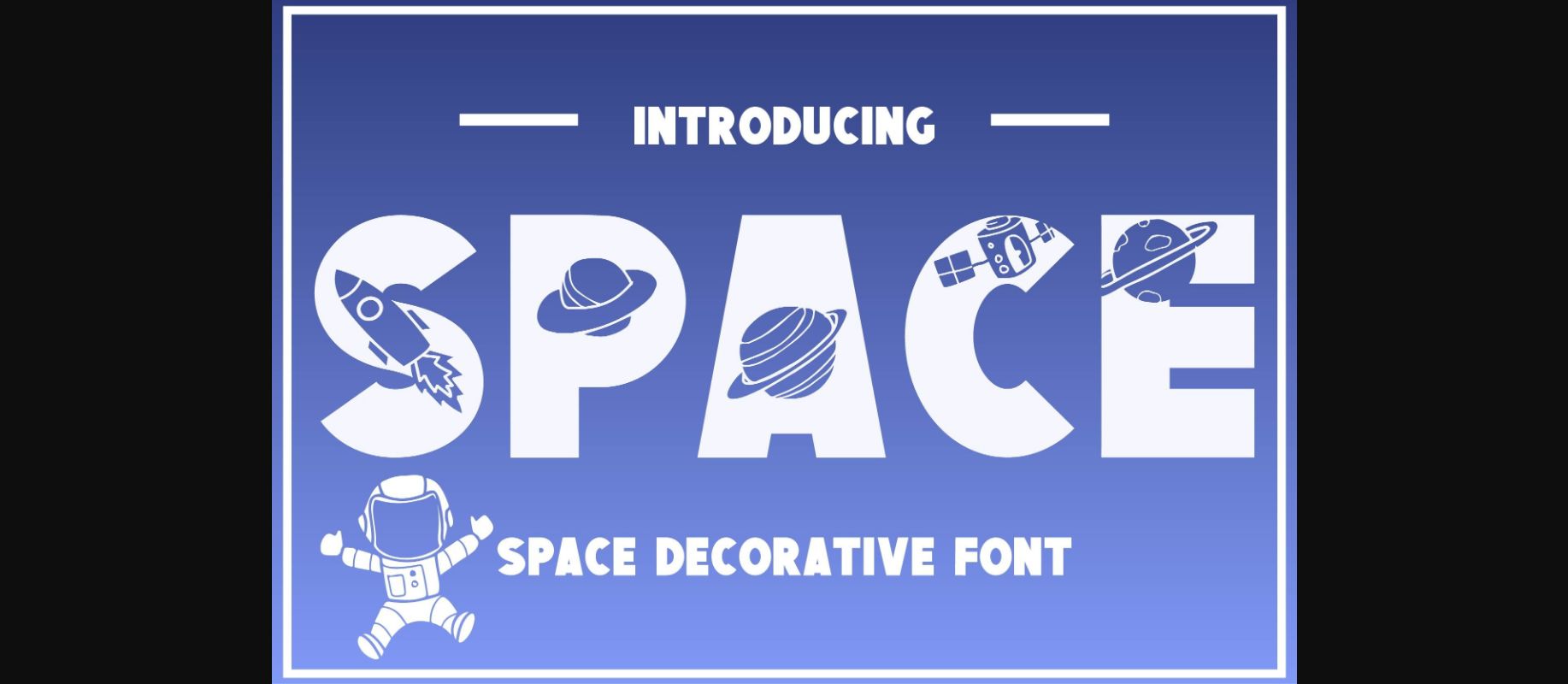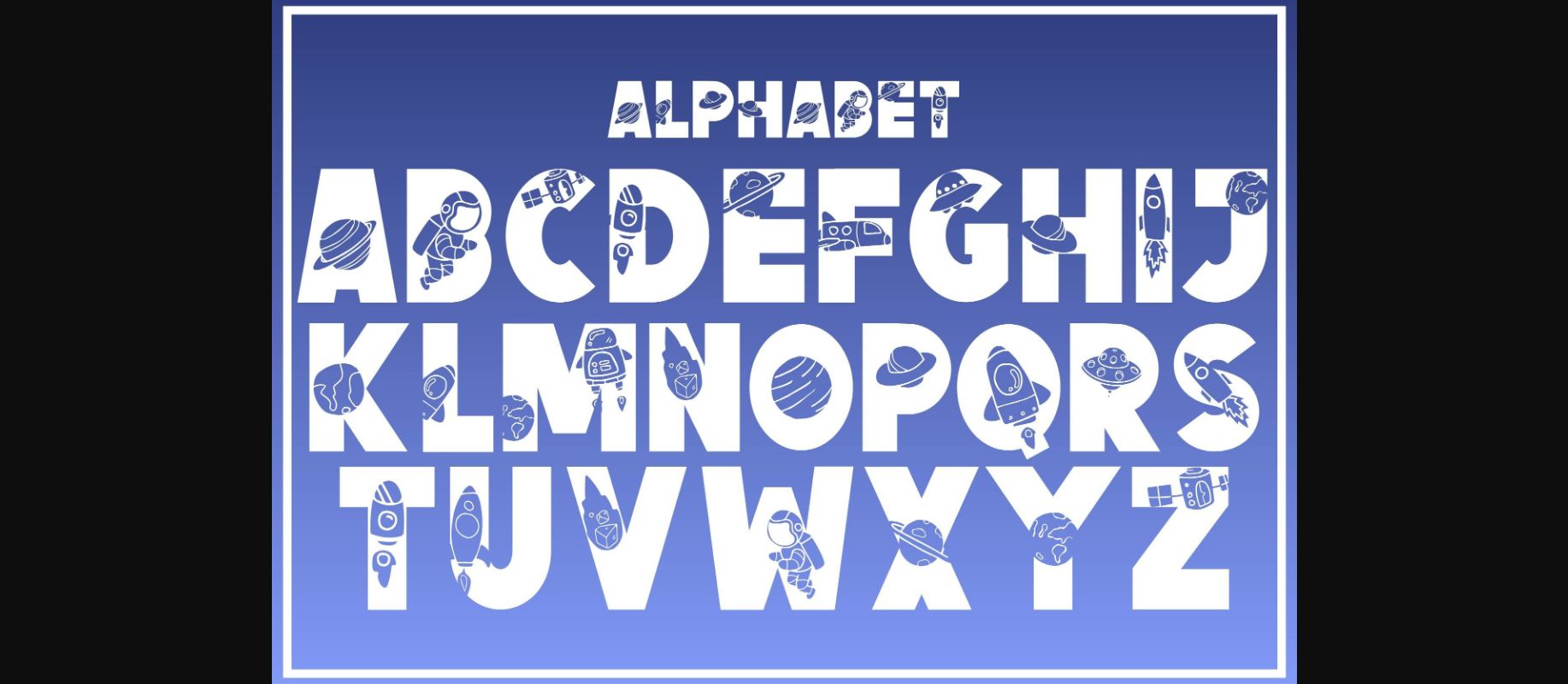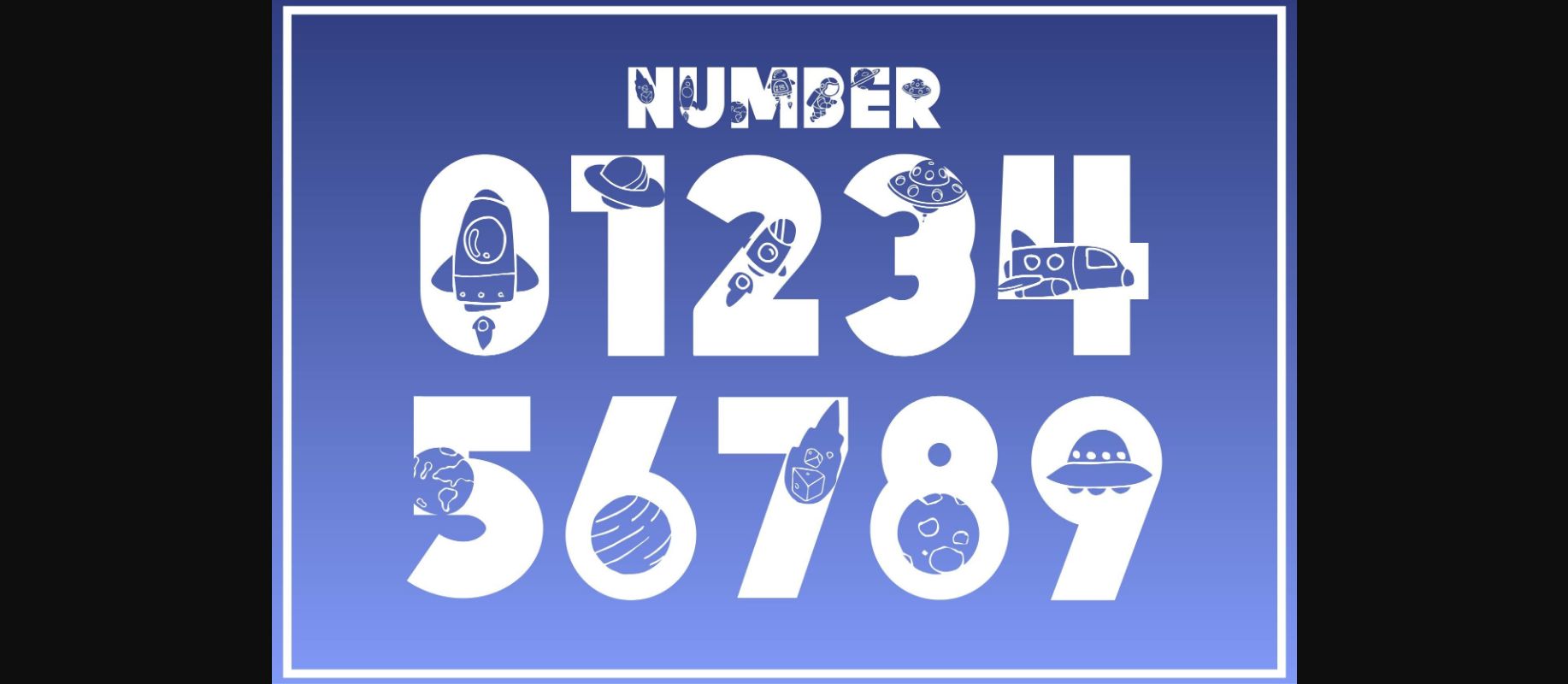
HomeDecorative FontsSpace Font Decorative Fonts Space Font FacebookXPinterestWhatsApp 1 of 5 ... Space Font Poster 2... Space Font Poster 3... Space Font Poster 4... Space Font Poster 5... About Space Font Space is an incredibly unique and interesting decorative font with a space theme. Its bold and chunky letters make this font adapt to a wide variety of designs. Space will turn any creative idea into a true standout! DOWNLOAD NOW People also explored Kitchen Font Amethyst Font Mindfulness Font Gentle Remind Font Bubble Font Bobotie Font Ristretto Script Font Santa Font Coldharbour Gothic Pro 305 0 TagsSpaceSpace Font Previous articleHaunted Town FontNext articleXmas Lights Trio Font LEAVE A REPLY Cancel reply Comment: Please enter your comment! Name:* Please enter your name here Email:* You have entered an incorrect email address! Please enter your email address here Website: Save my name, email, and website in this browser for the next time I comment. Personal Use Free Gardening Personal Use Free Read more about this font Dead Block Personal Use Free Read more about this font Evelyne Personal Use Free Read more about this font Cinderella Personal Use Free Read more about this font BLOG Fonts That Capture the Spirit of New York City New York City is more than just a place—it’s an experience, a rhythm, a visual language... Best Fonts for T-Shirt Design – Top 2025 Picks Top 10 Handwritten Fonts That Elevate Your Designs How to Install and Use Fonts on Windows, macOS, and Web Projects